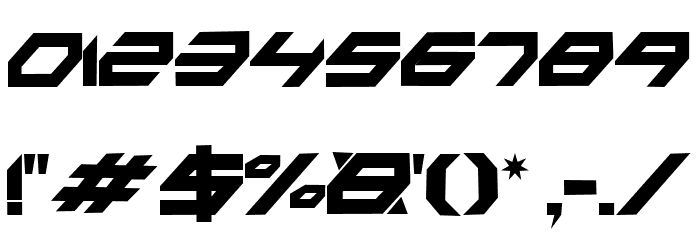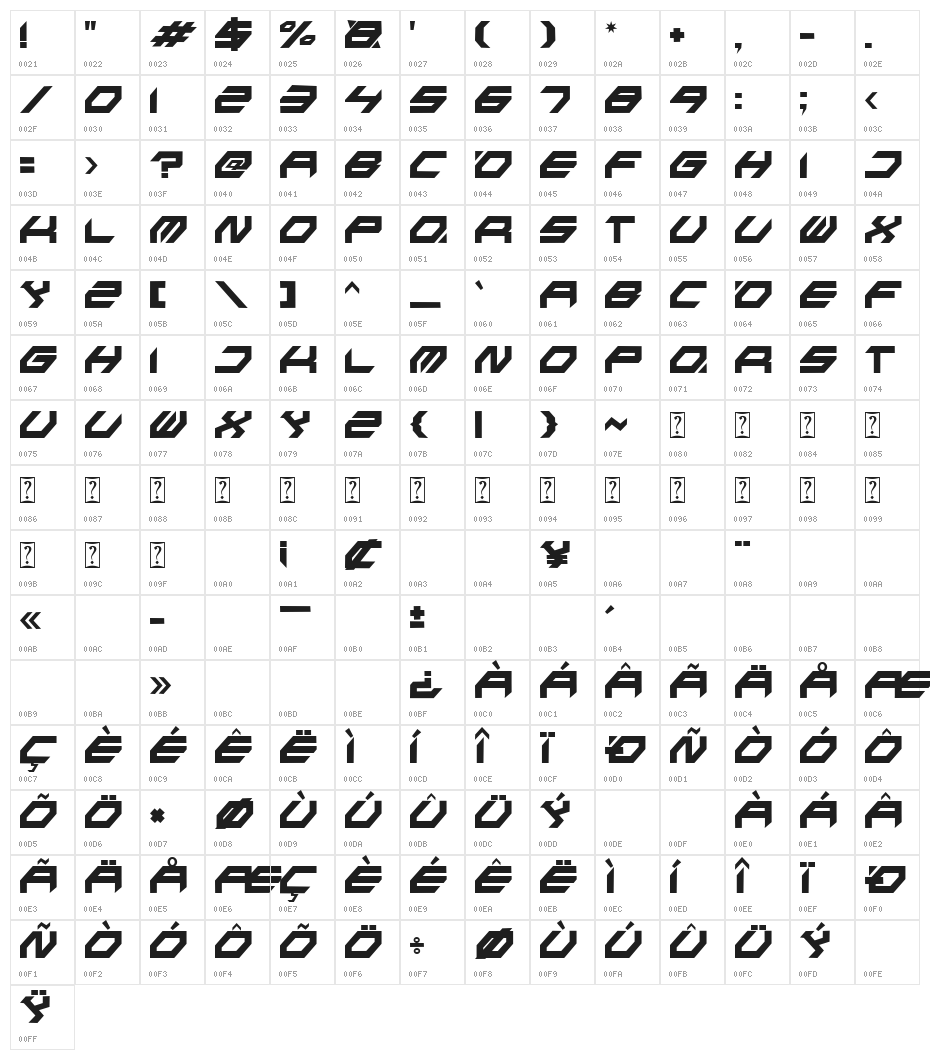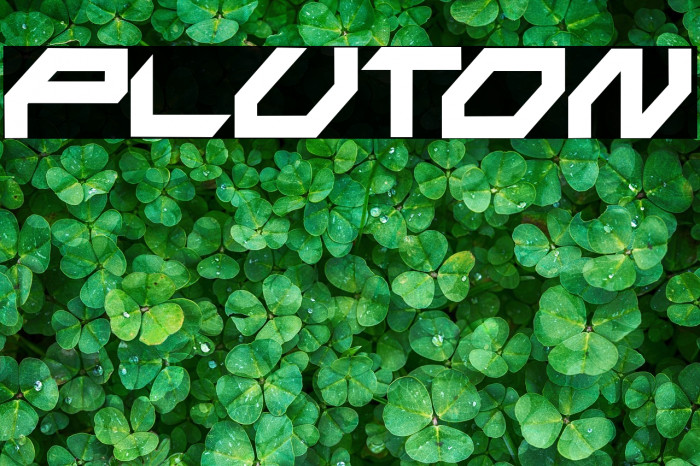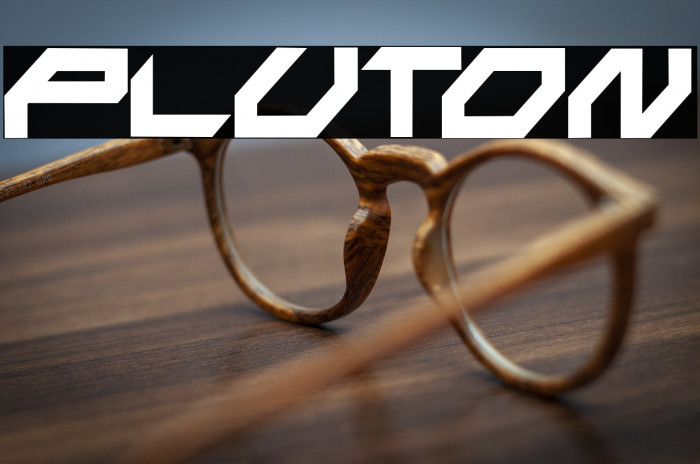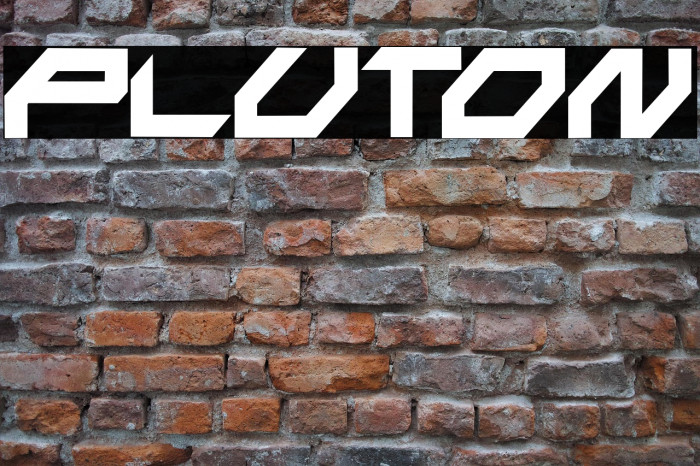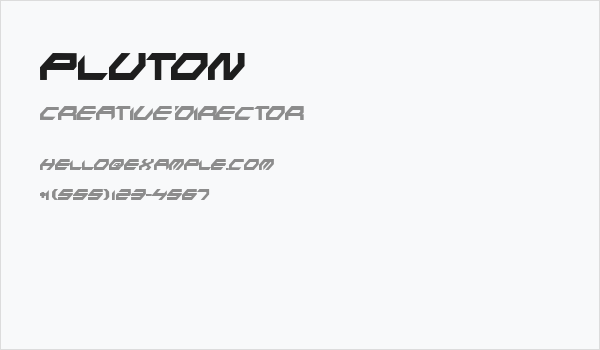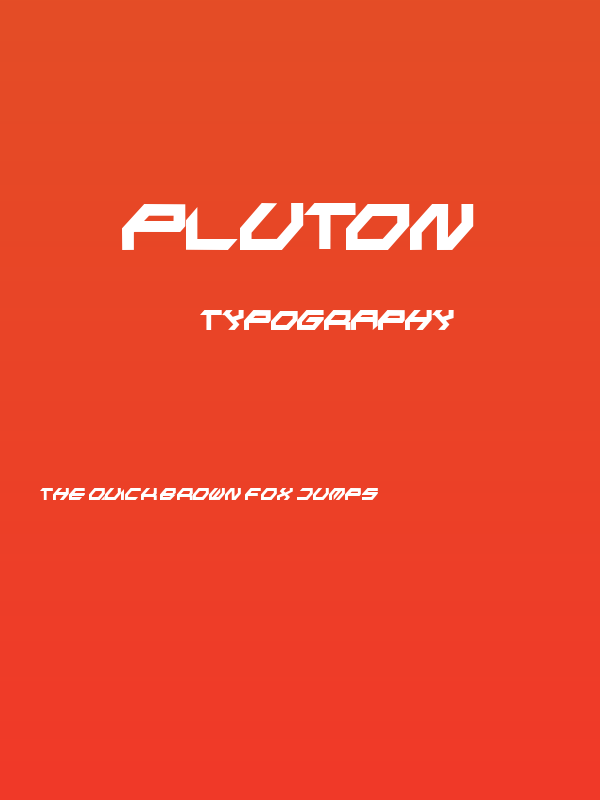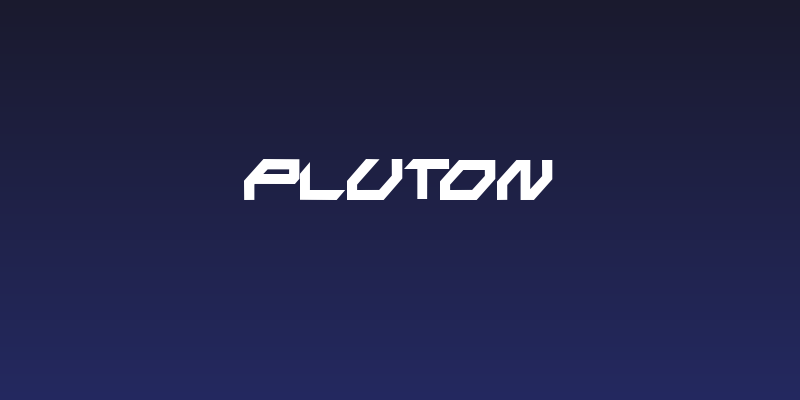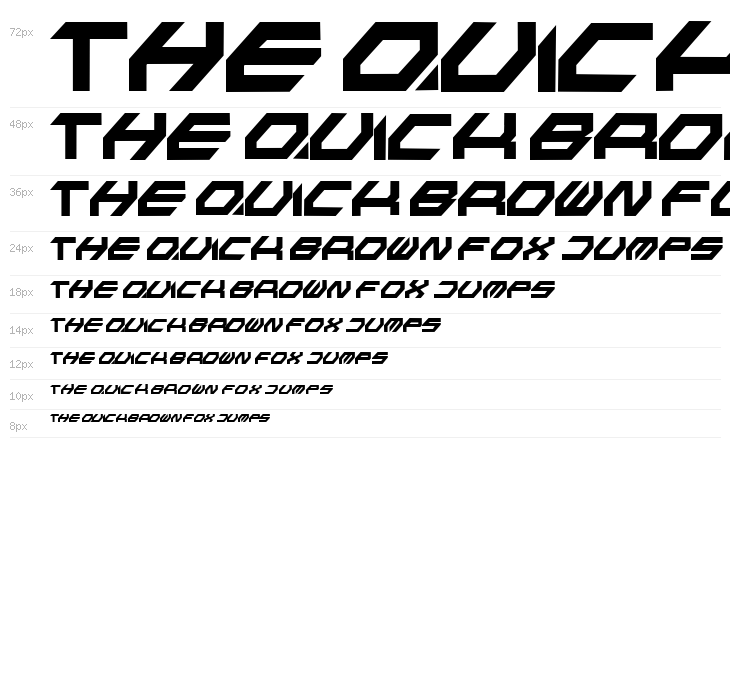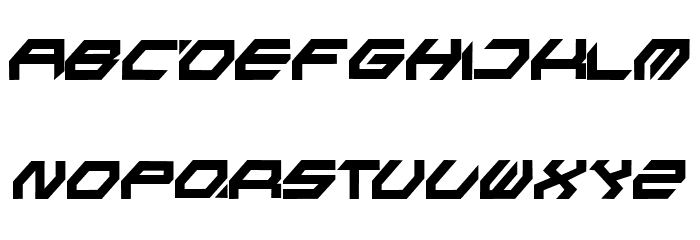
PLUTON Font
PLUTON Description
This font features a bold, futuristic design with sharp angles and geometric shapes. The characters are constructed with a distinct, angular style that gives a sense of movement and modernity. The uppercase and lowercase letters maintain a consistent design, with each character exhibiting a unique, stylized form. The numbers and special characters follow the same angular theme, ensuring a cohesive look throughout. This font is ideal for projects that require a modern, tech-inspired aesthetic.
| Proposed Projects | Ideal for technology branding, sci-fi posters, video game titles, and modern logos. |